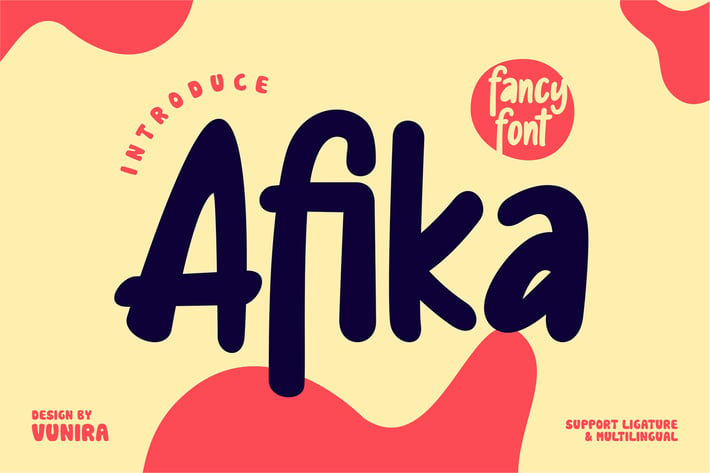
Afika | Fancy Font
Afika | Fancy Font with a calligraphy style, So beautiful on invitation like greeting cards, branding materials, business cards, quotes, posters, and more!